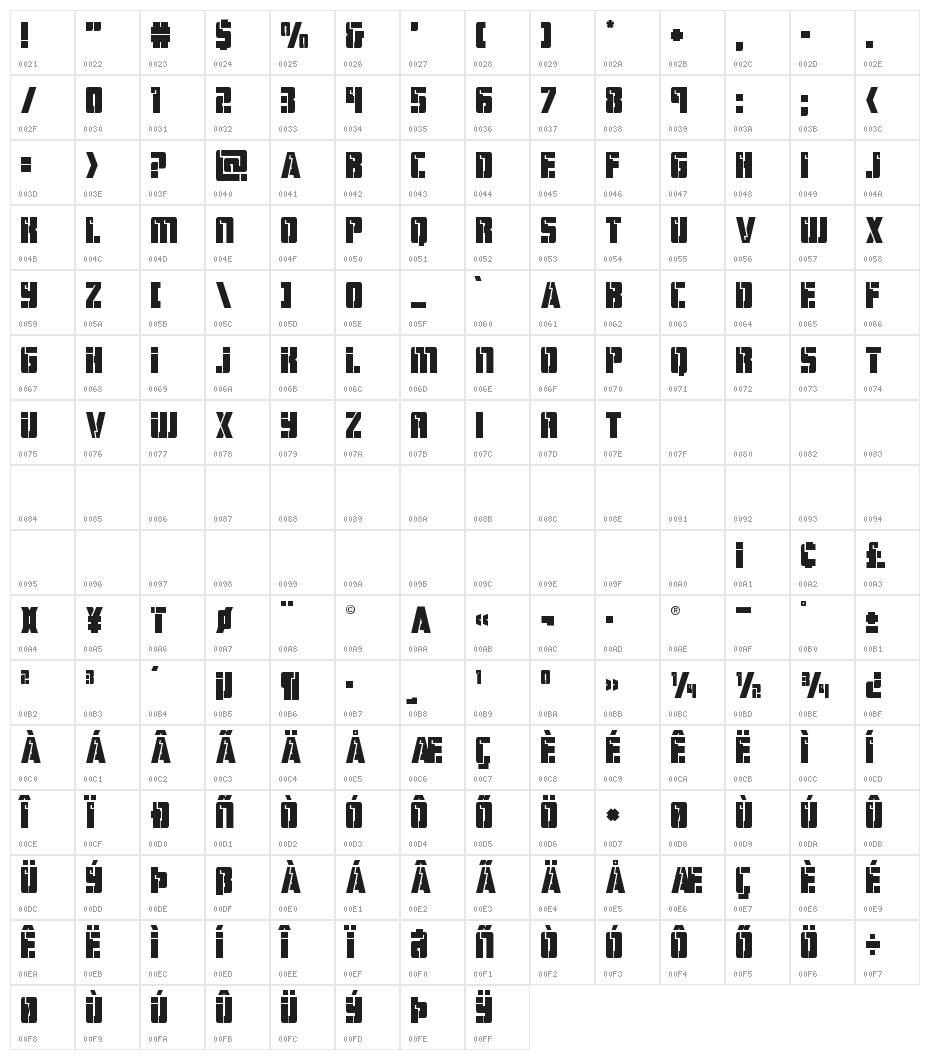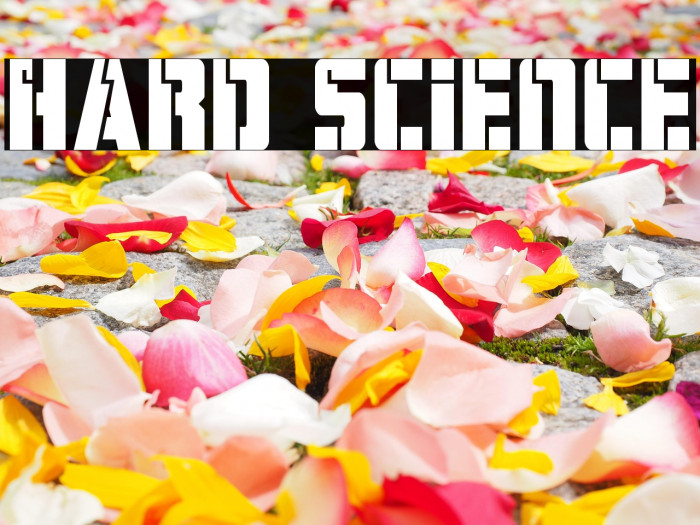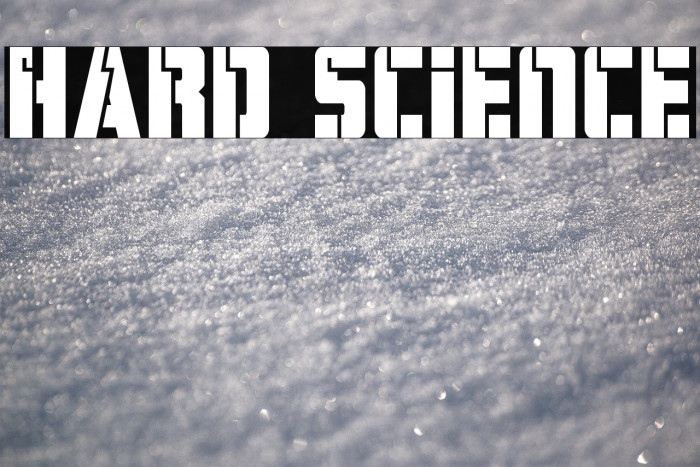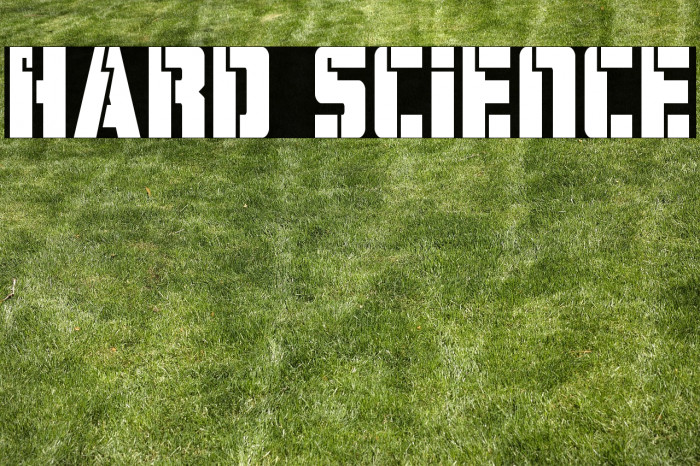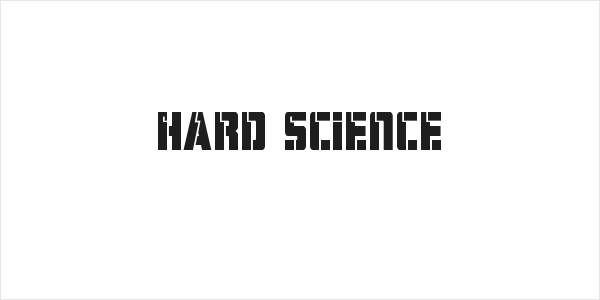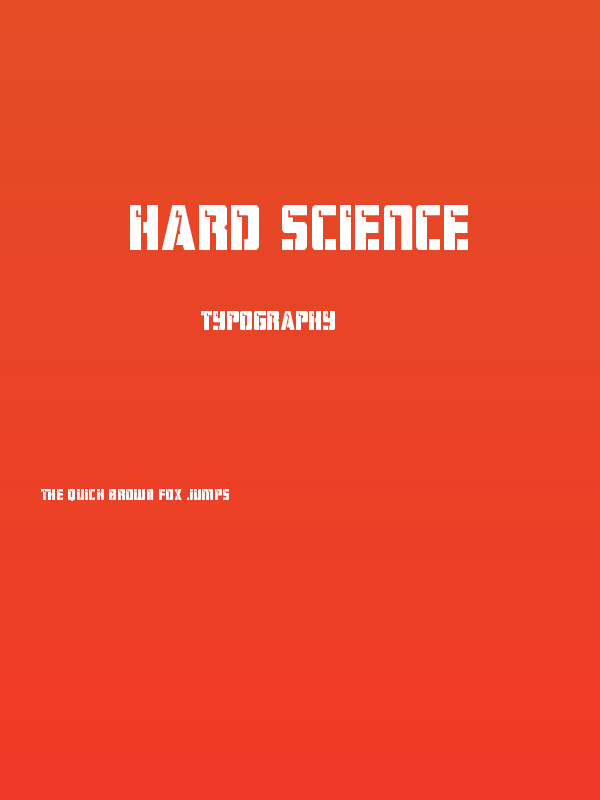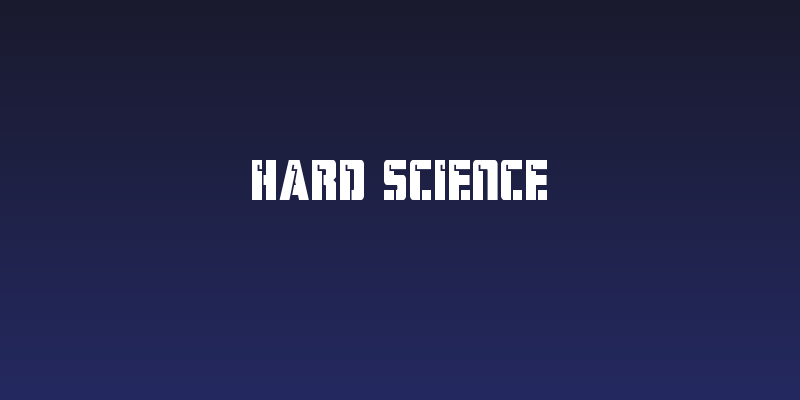
Hard Science Font
Hard Science Description
This font features a bold, geometric design with a strong, industrial feel. The characters are constructed with thick, block-like shapes that convey a sense of strength and solidity. The angular cuts and sharp edges give it a modern, futuristic appearance, making it ideal for projects that require a bold statement. The uppercase and lowercase letters maintain a consistent style, with the numbers and special characters following suit. The uniformity in stroke width across all characters ensures a cohesive look, while the minimal spacing between characters adds to its compact and impactful presence.
| Proposed Projects | Ideal for branding, posters, video game titles, and any project needing a strong, modern aesthetic. |